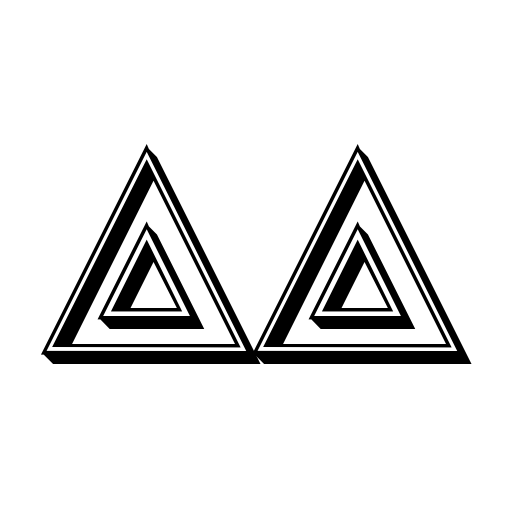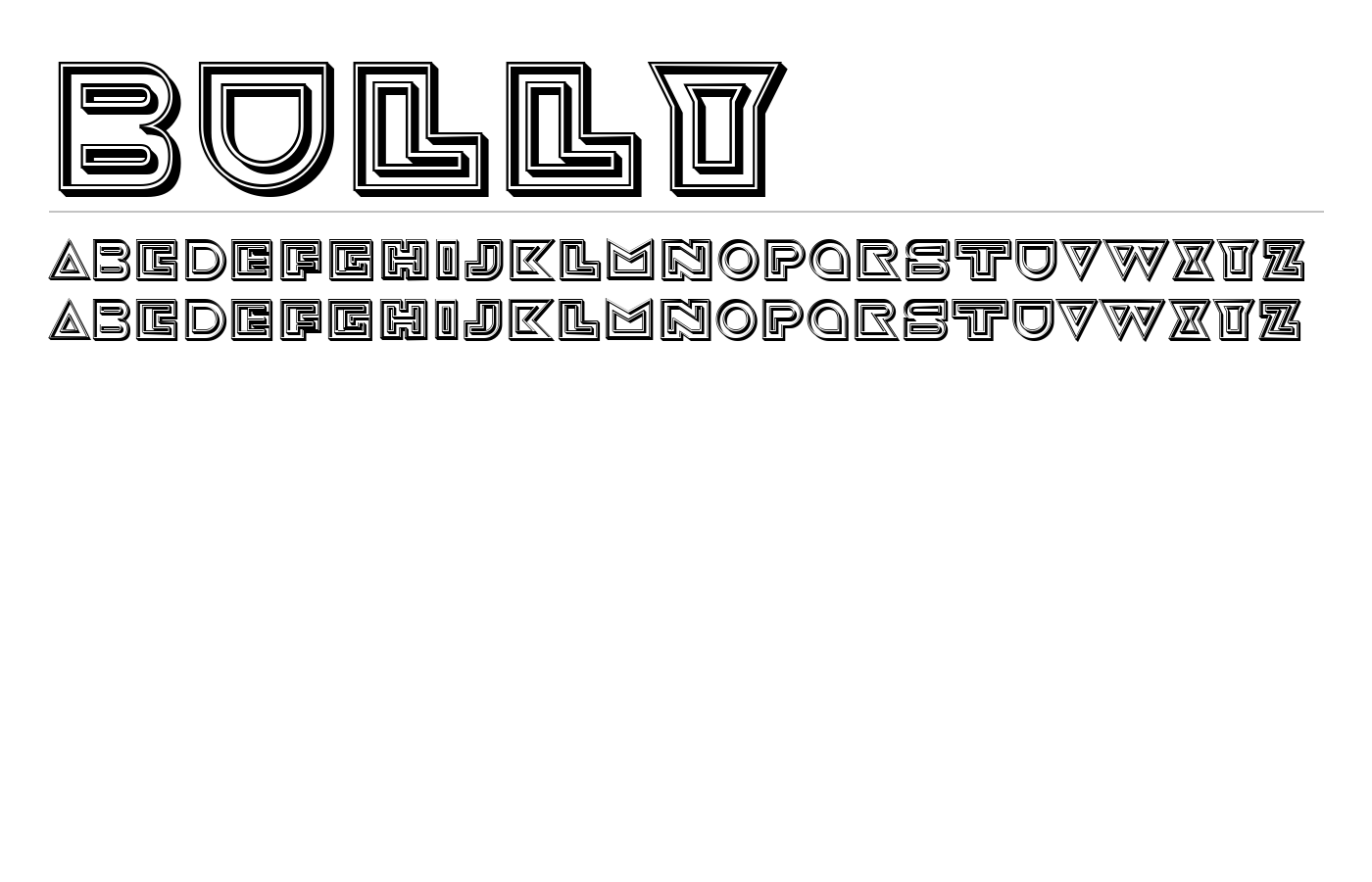
Bully Font is a bold, decorative sans serif typeface that features strong geometric shapes with a layered, three-dimensional outline effect. Its heavy weight and unique angular letterforms give it an edgy, modern look perfect for eye-catching headlines, branding, and display purposes where a standout, playful personality is desired. This font works well in creative projects aiming to convey energy and impact with a stylish, urban vibe.
Bully Font
About Bully Font
| Font family | Bully Font |